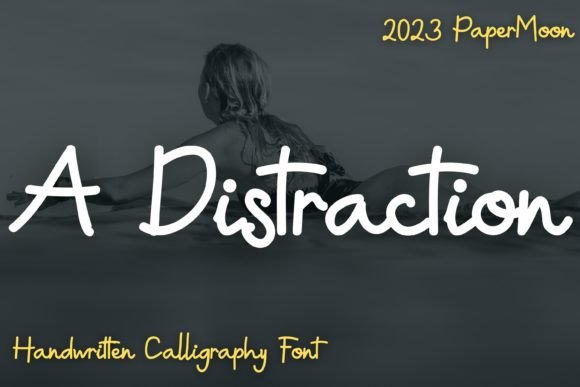
Are you looking for a unique and captivating font that will make your invitations stand out? Look no further than A Distraction, a stunning handwritten script font crafted with elegance, vintage charm, and a touch of sophistication.
With its meticulously spaced and kerned characters, A Distraction brings a level of refinement and personality to any design project. Whether you're creating invitations for a children's party, a birthday celebration, or a special event, this font will add an air of exclusivity and charm.
Step into a world of creative possibilities with A Distraction. This versatile font is perfect for a wide range of projects, including branding, logos, stationery, business cards, signage, flyers, and brochures. Its classic appeal and modern twist make it suitable for various industries, from weddings and events to real estate, architecture, and beyond.
Picture your invitations adorned with A Distraction's elegant strokes, captivating the hearts of your guests. Its timeless style and playful charm will leave a lasting impression, making your event truly unforgettable.
With A Distraction, you'll have the power to transform ordinary words into extraordinary expressions. Its clean, line-based design adds a touch of sophistication, while its meticulously crafted characters radiate style and personality.